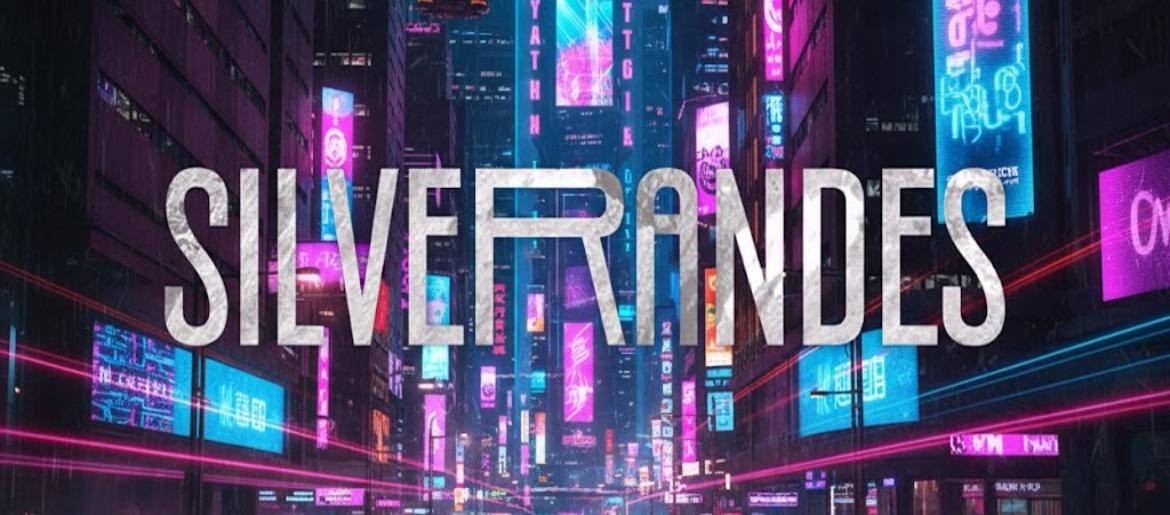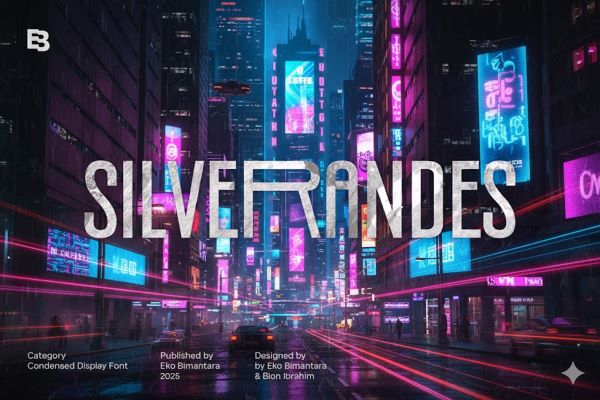
Silverandes Font
Silverandes Font is a modern display typeface designed with elegant curves and confident structure. Its stylish letterforms create a premium visual feel, making it suitable for logos, branding, headlines, posters, and social media graphics. Silverandes blends creativity with readability, helping designs stand out while maintaining a clean, professional appearance across both digital and print projects.
➤ Font Name: Silverandes
➤ Designer: Eko Bimantara
➤ Style: Condensed Display